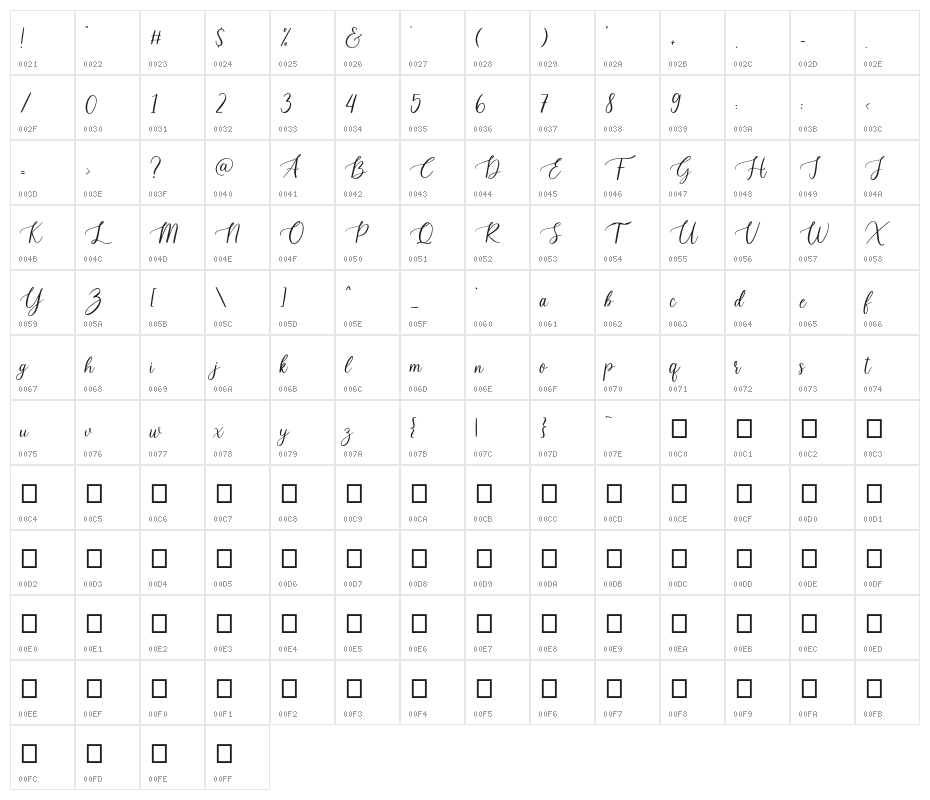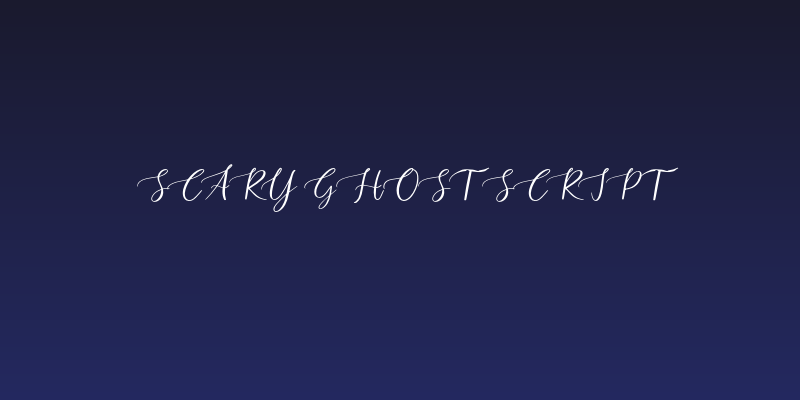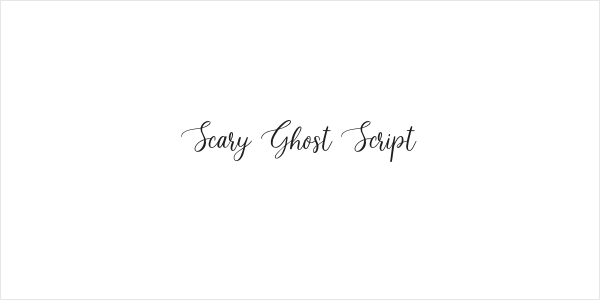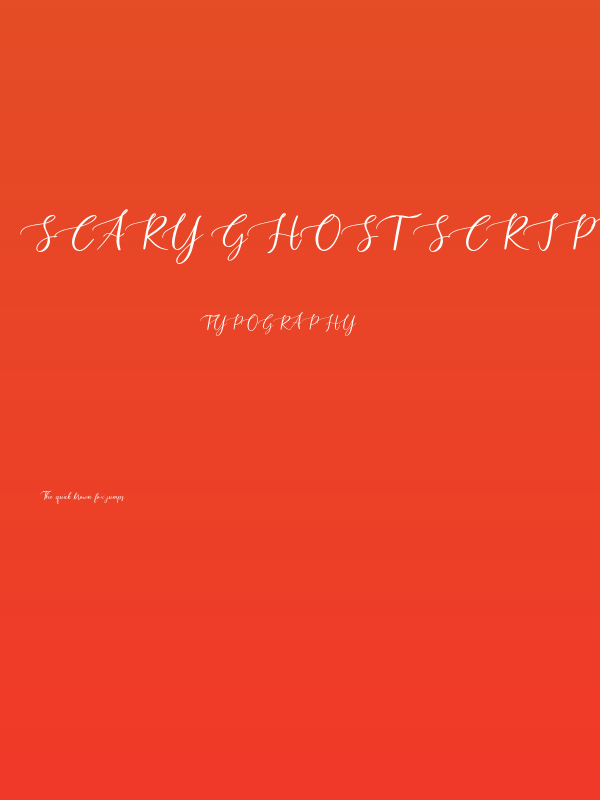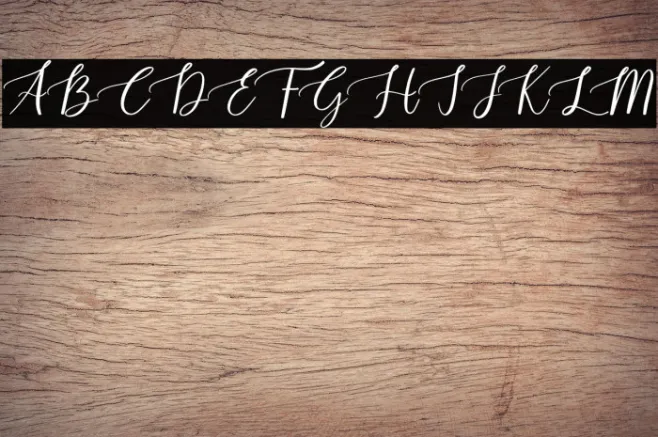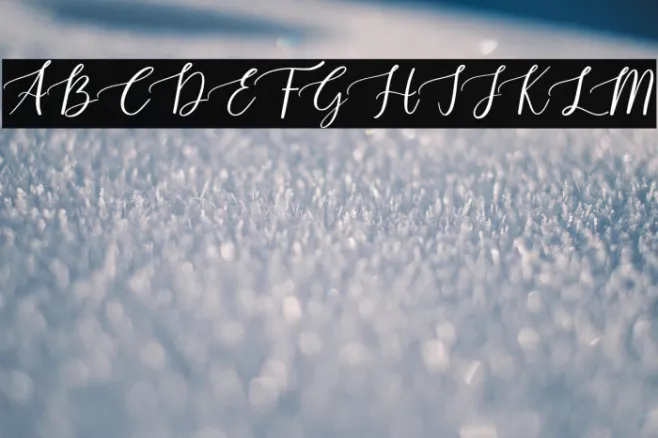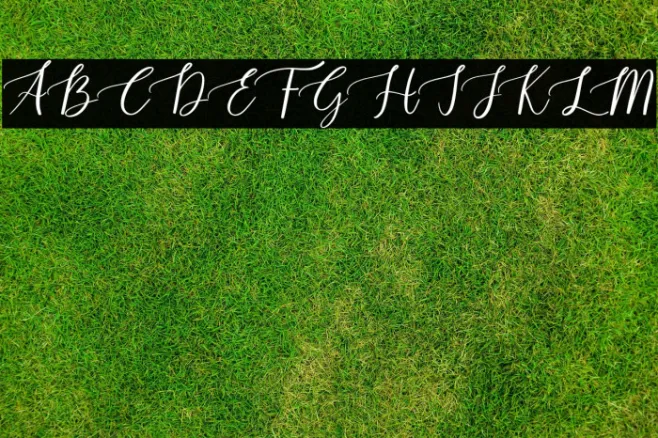
Scary Ghost Script Font
Scary Ghost Script Description
This font exudes a whimsical and elegant script style, characterized by its flowing, cursive letters that connect seamlessly. The uppercase letters are tall and graceful, with sweeping ascenders and descenders that add a sense of movement and fluidity. The lowercase letters maintain a consistent rhythm, with rounded forms and delicate loops. Numbers are clear and legible, maintaining the script's elegant style. Special characters are creatively integrated, enhancing the font's decorative appeal. Overall, this font combines sophistication with a playful touch, making it suitable for various creative applications.